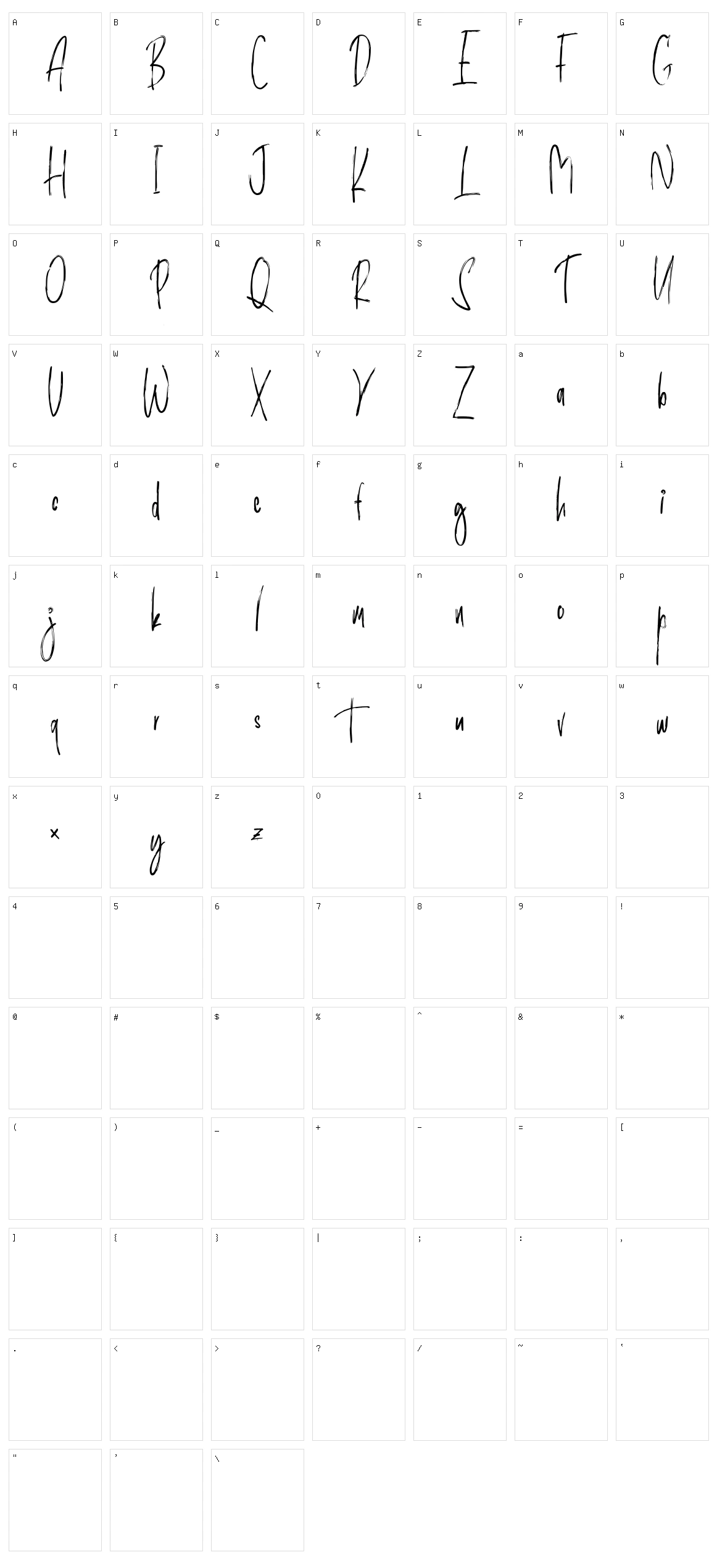
The free font Wildeoo is carefully designed by InspiraType, showcasing a thoughtful balance of creativity and usability and falls under the Script font style. When you download the ZIP file, it contains only 79.54 KB of font files, making it lightweight and quick to download. Please review the license details below to understand permitted usage and distribution rights. If license information is not available, we recommend using this font for personal projects only or contacting the author directly for commercial usage permissions.